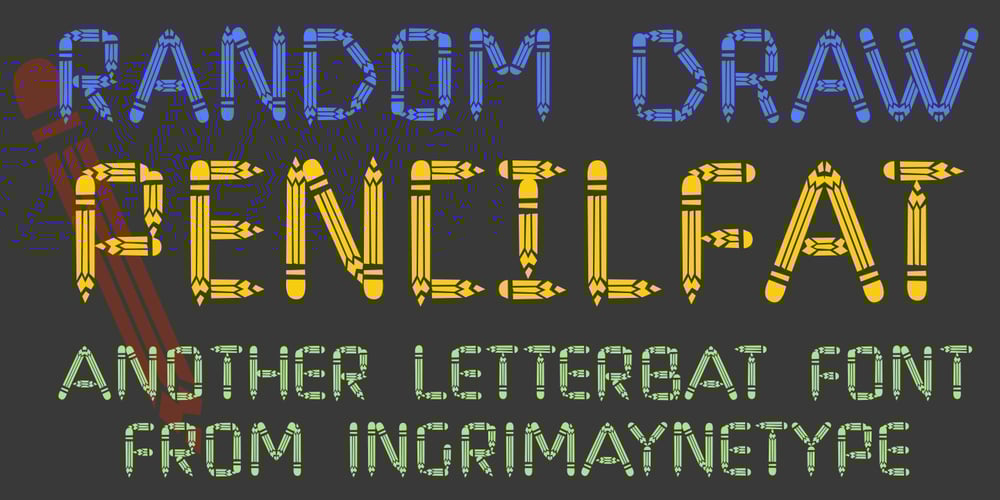
Pencil Font Family was designed by Robert Schenk and published by Ingrimayne Type. Pencil contains 3 styles and family package options. Imagine that you had a bunch of pencils of various sizes and you wanted to make a set of letters with them. You would probably come up with something similar to one of these three typefaces. It is caps only, but some of the characters on the lower-case keys are different from those on the upper-case keys.